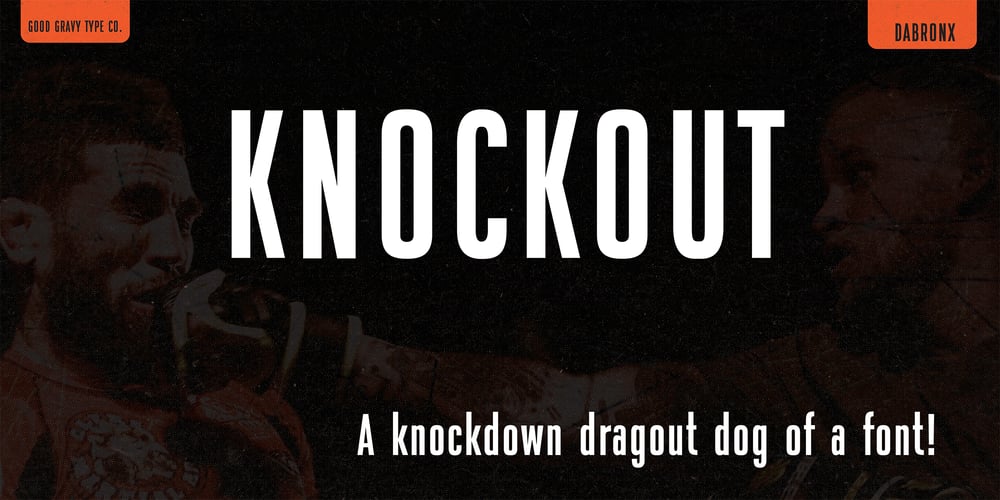
Da Bronx Sans
Da Bronx Sans font
Da Bronx Sans Font Family was designed by Dathan Boardman, Conrad Garner and published by Good Gravy Type Co. Da Bronx Sans contains 8 styles and family package options. DaBronx is an downright nifty condensed grotesque font family. It comes with 12 righteous weights. DaBronx is ready for a wide range of uses. It would look great scrolling across a screen and would give extra presence to titles and headlines in a number of different applications. DaBronx is like a finely tailored suit for your content, upright, spiffy and slick. It has been painstakingly tweaked to perfection in the Good Gravy lab to make it so easy on the eyes. It looks stellar in an ad campaign, logo design, apparel, or anything else that requires a sleek modern look. DaBronx would pair well with Koozie Script, another one-of-a-kind Good Gravy font!